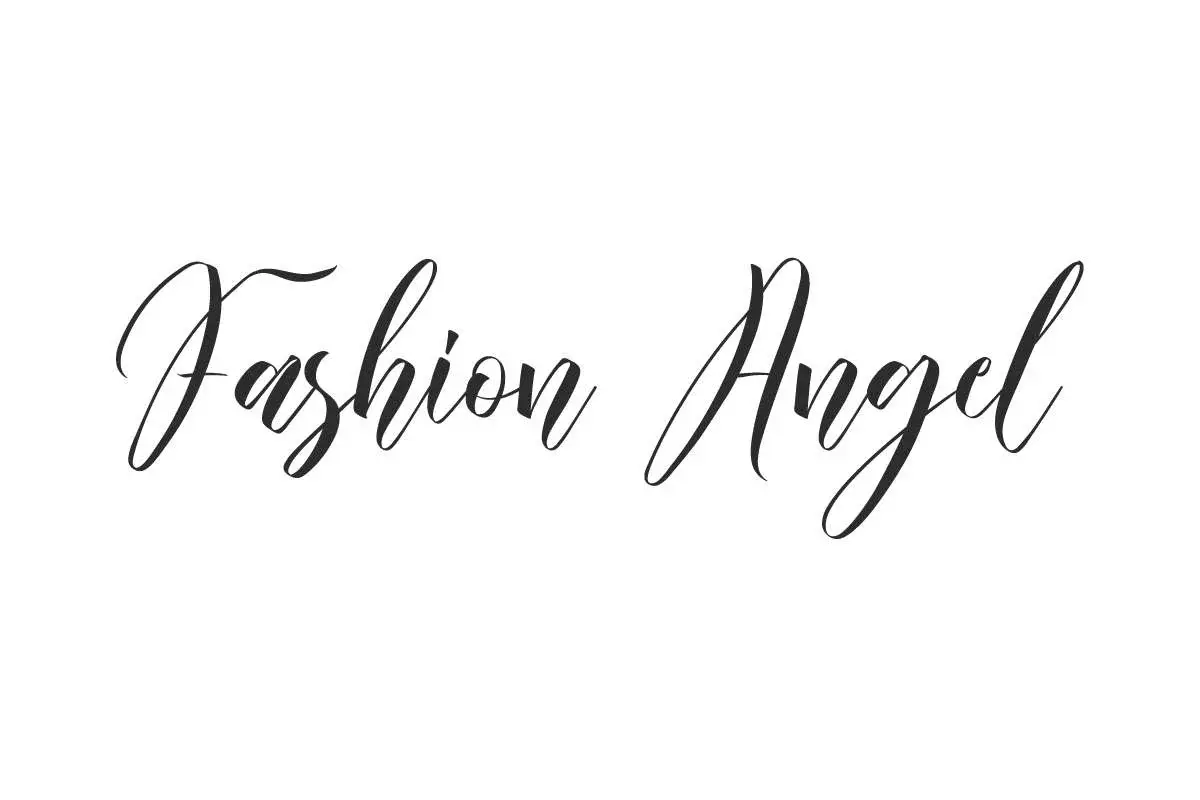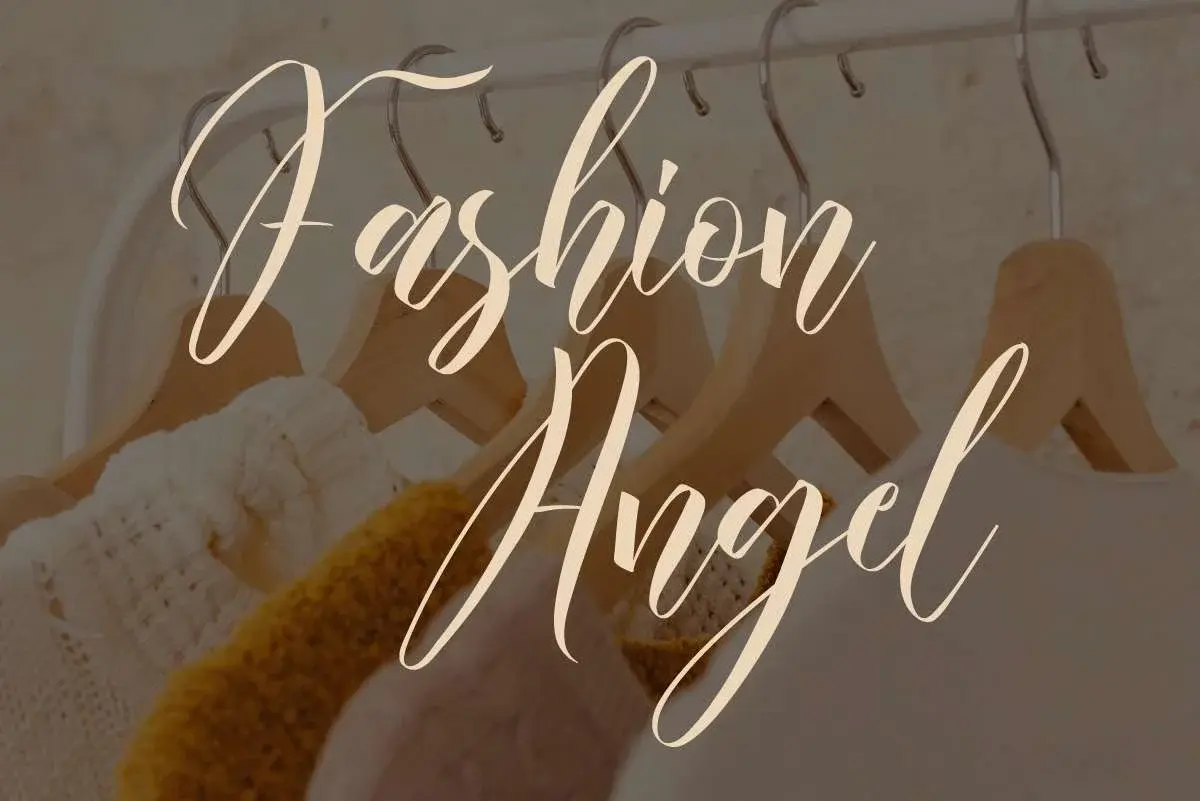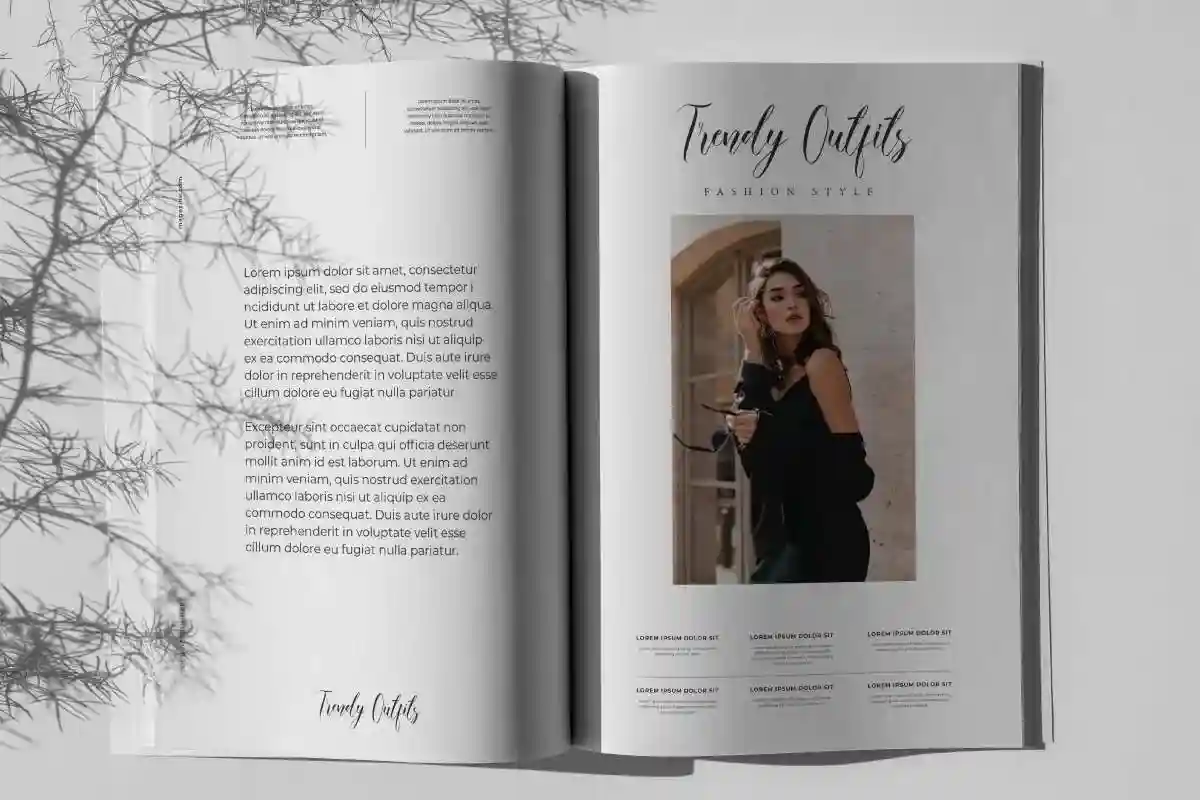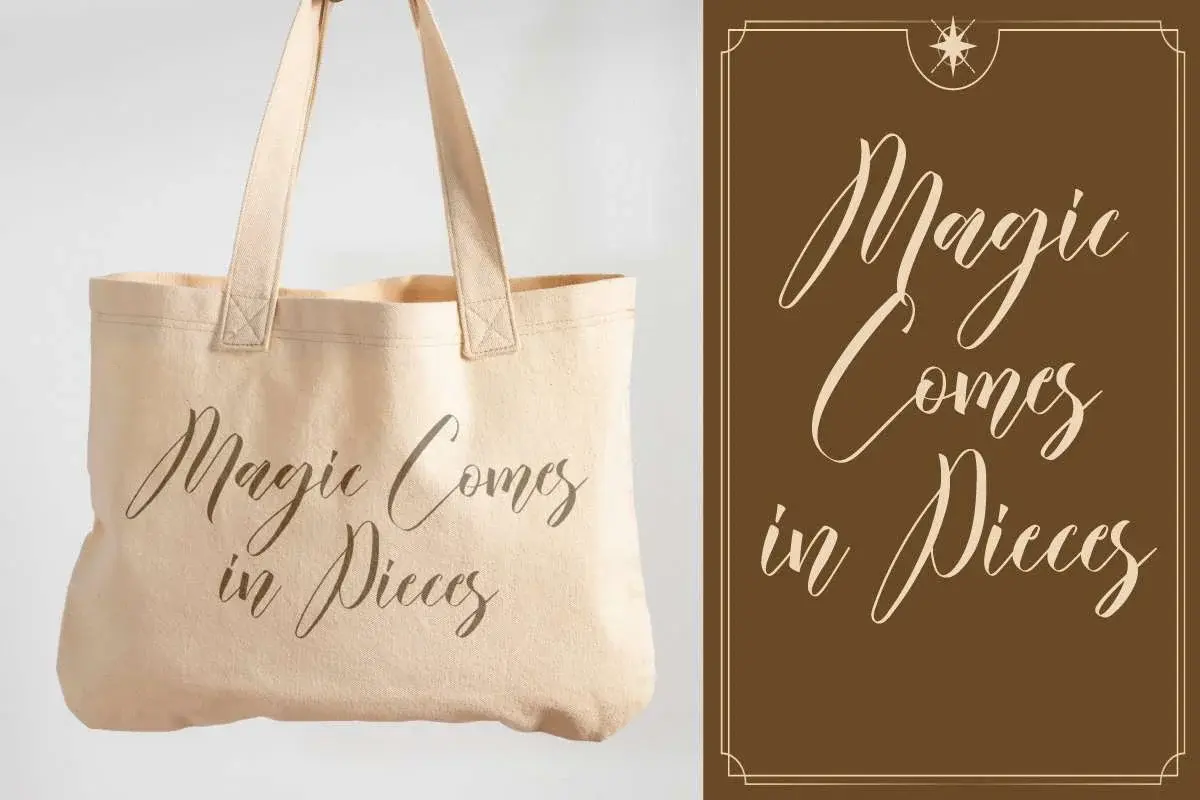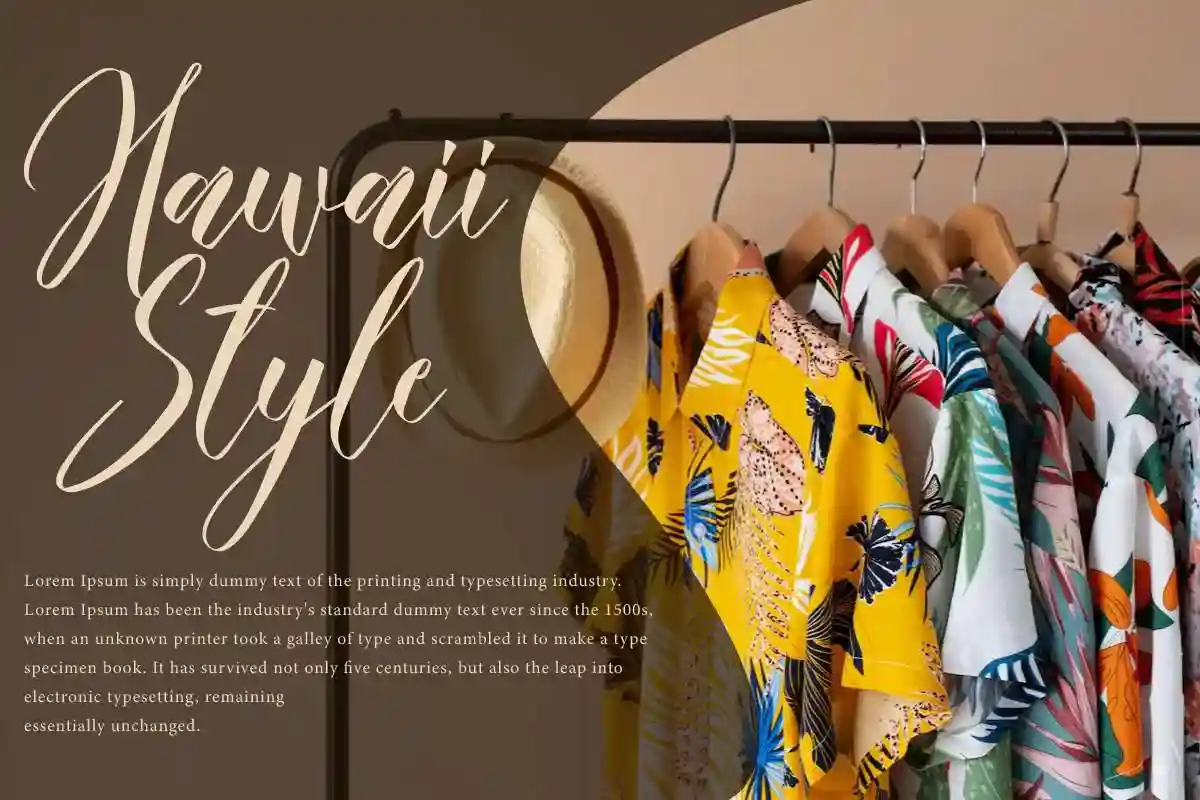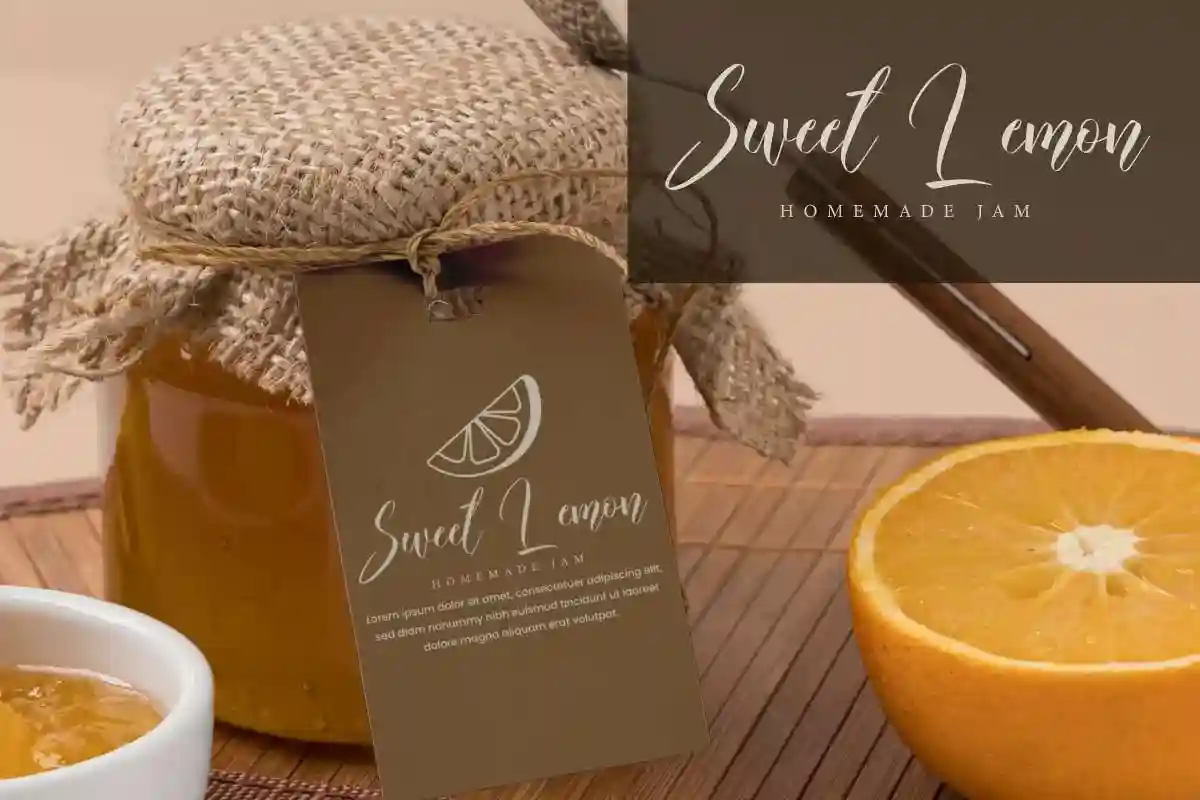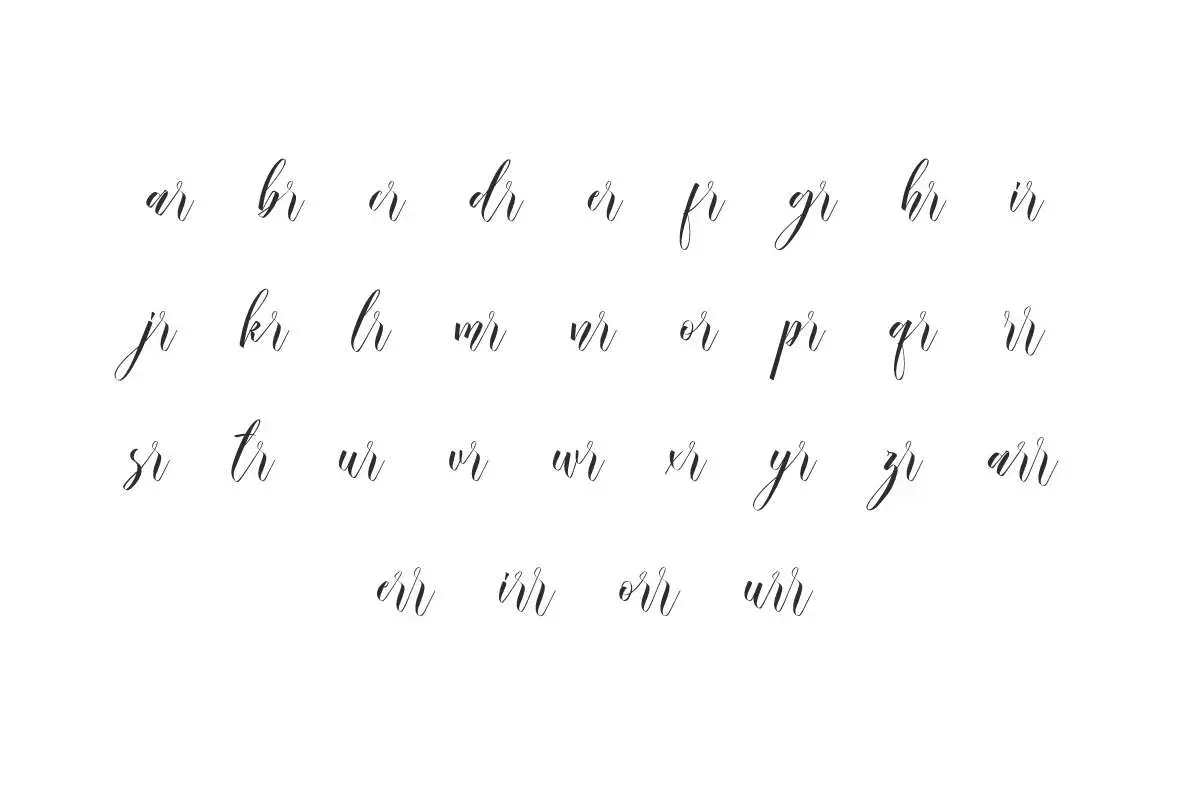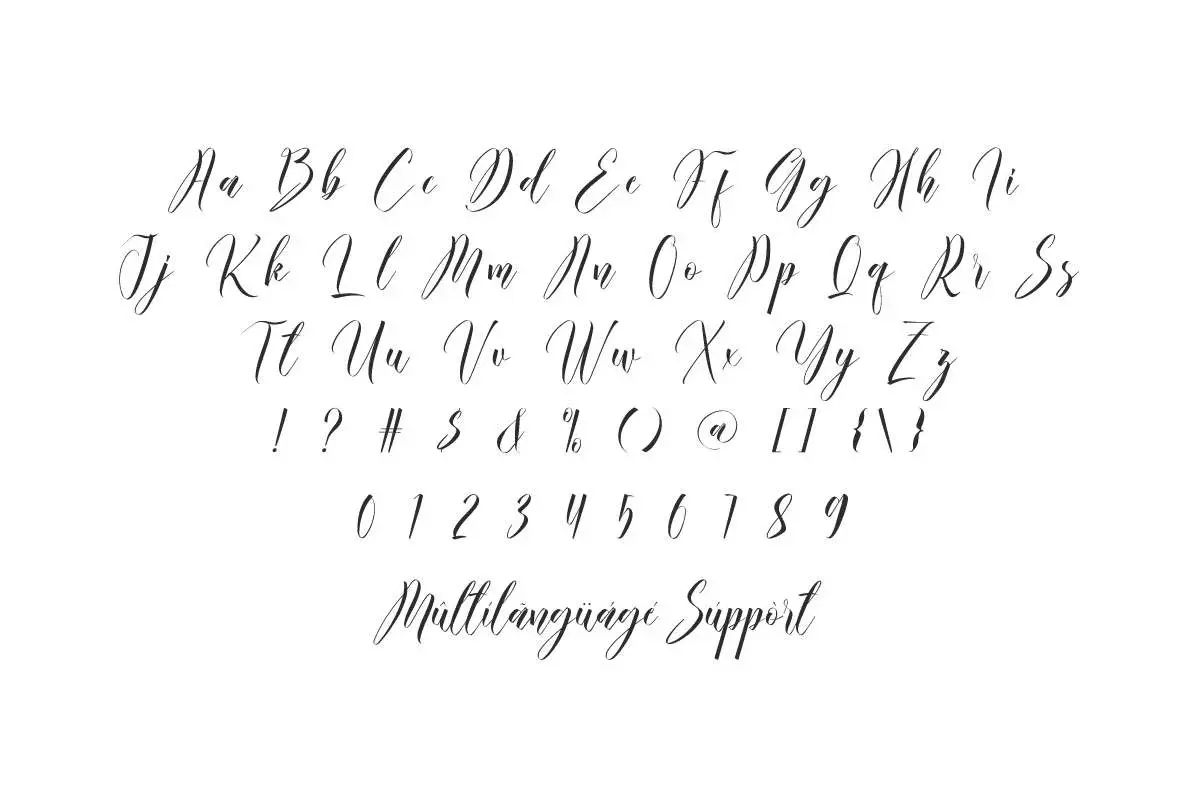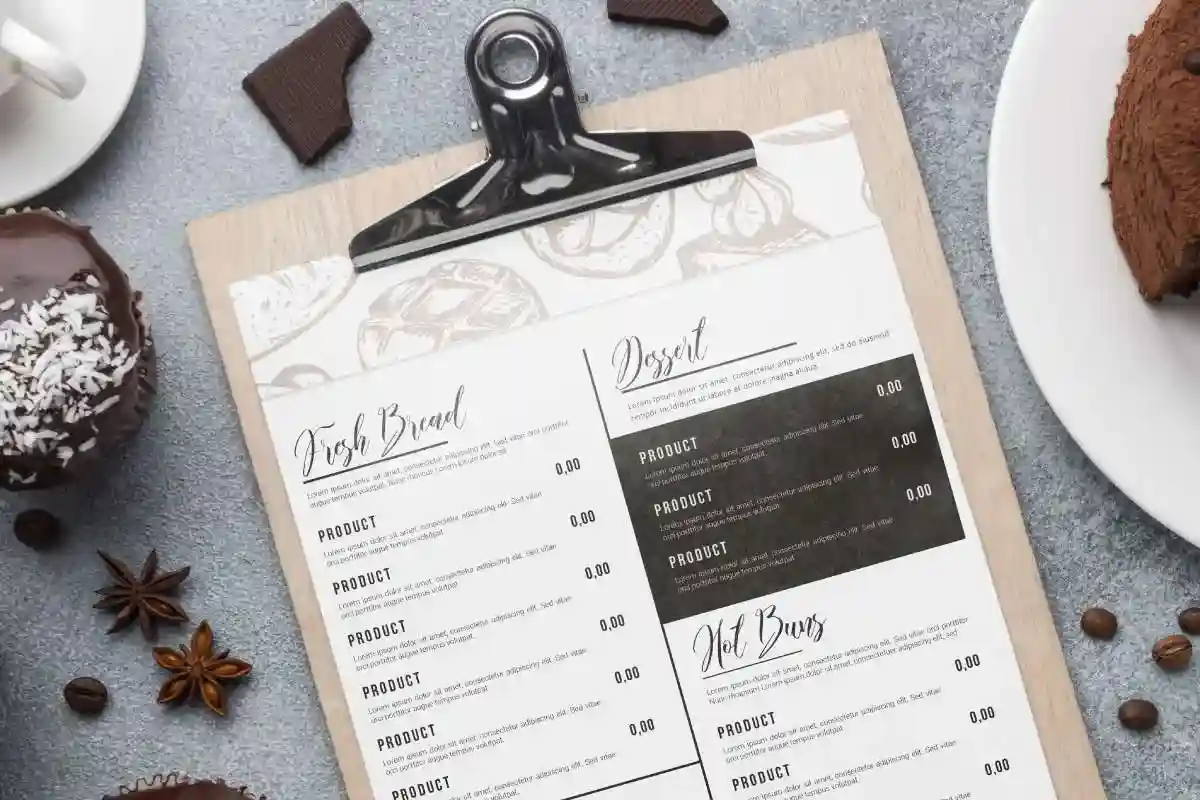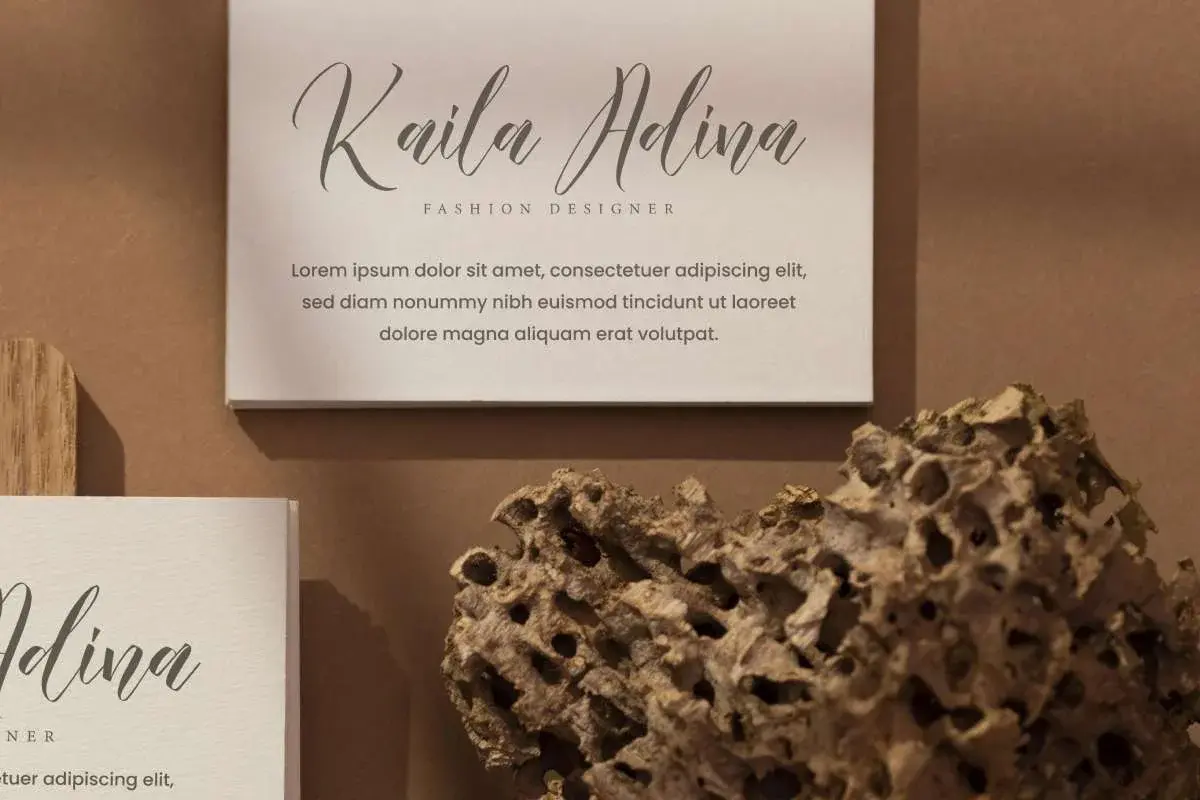
Fashion Angel Font is a unique calligraphic font with a special look that shows a fashionable side. It would be perfect for fashion brand, magazine cover, product labels, restaurant, title, website, etc.
Fashion Angel Font is a unique calligraphic font with a special look. This font is inspired by the feel of an upscale European restaurant. This will add to the visual beauty of your design, such as brand logo, brochure, catalog, cover, invitation, label, packaging design, quote, screen print, sheet menu, signage, stationery, sticker, title, website, and much more!
Fashion Angel Font comes with a full set of Uppercase and Lowercase Basic Characters, Number, Punctuation, Symbol. Also with the addition of a Ligature character to bind perfectly and bring aesthetic value to the font. Use this for your business industry such clothes, craft, event organizer, fashion designer, florist, furniture, healthy food, pottery, printing, publishing, real estate, restaurant, skincare, spa salon, wedding, etc.